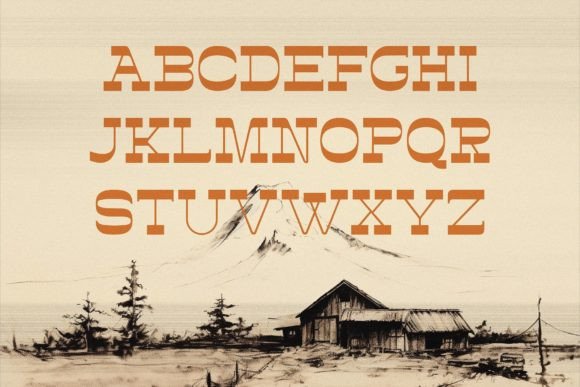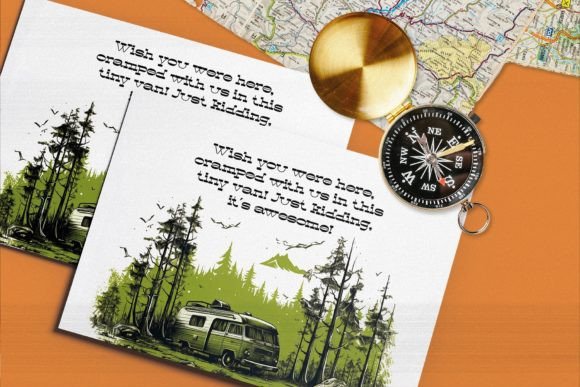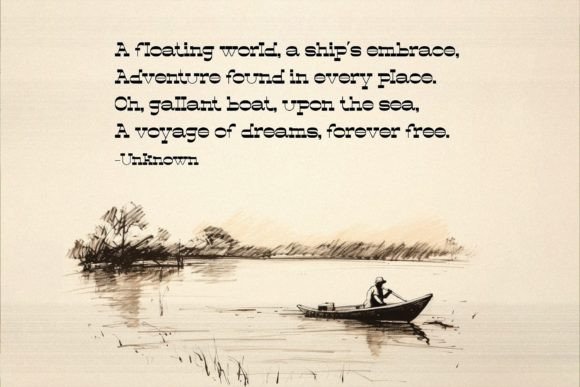
Introduction to Canyon Slab Font
Saddle up and venture into uncharted typographic territory with Canyon Slab, a wild west-inspired serif slab typeface that beckons you to explore the untamed frontiers of design.
Like the rugged canyons that have withstood the test of time, this font’s bold serifs and sturdy letterforms exude a sense of strength and adventure Canyon Slab captures the spirit of the old west, where legends were born and tales of grit and determination echoed through the canyons.
Key Features of Canyon Slab Font
Why Choose Canyon Slab Font?
Canyon Slab Font offers exceptional quality and versatility, making it a valuable addition to your design toolkit. Whether you’re creating for personal projects or commercial use, Canyon Slab Font delivers professional results.